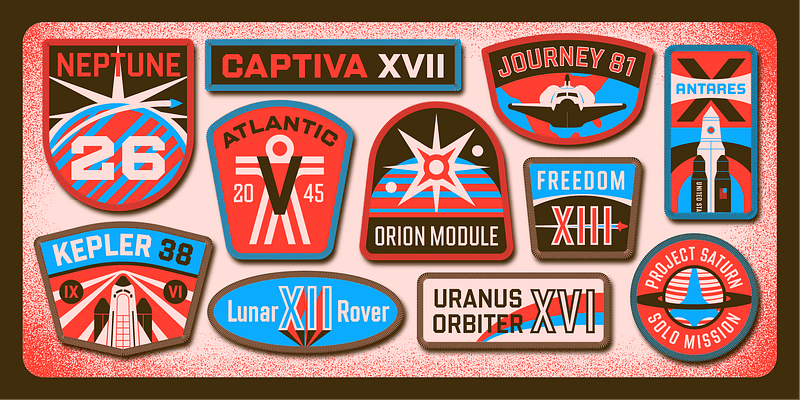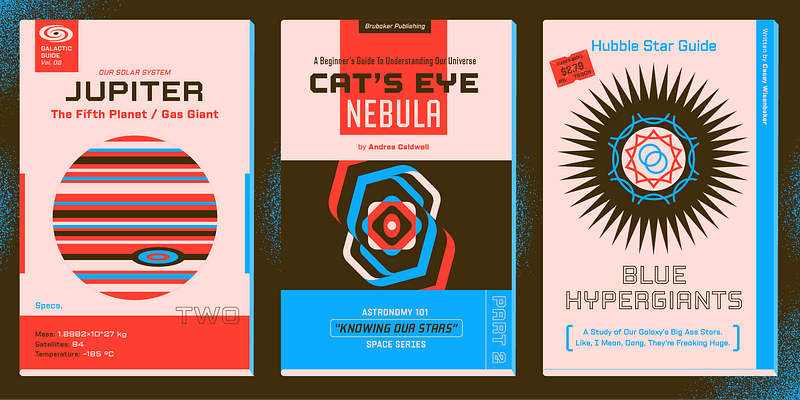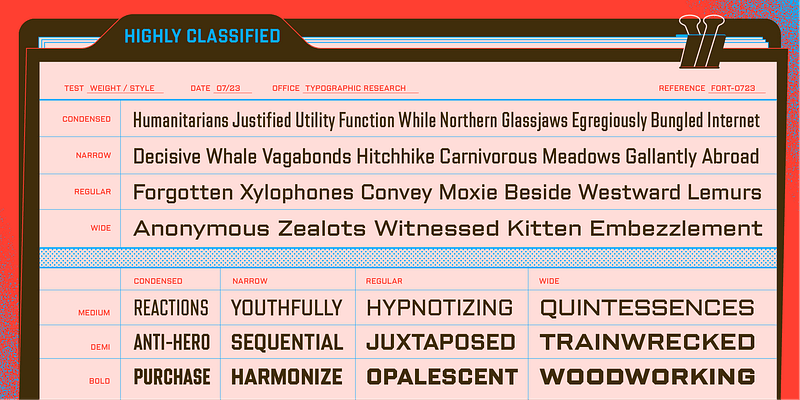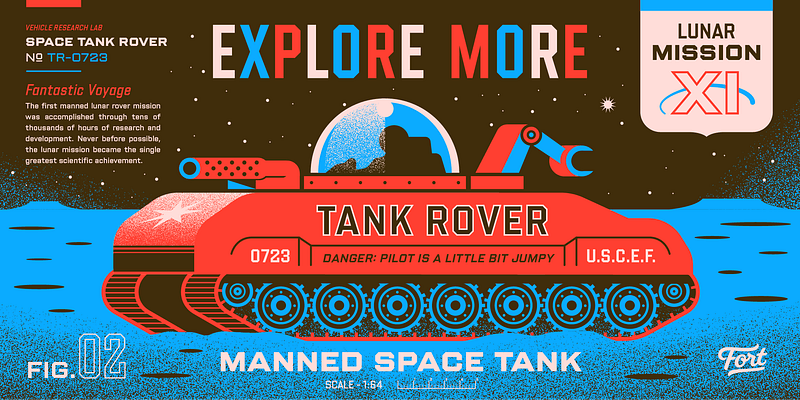
Shuttleblock Font
The Shuttleblock Font is perfect for sci-fi gaming graphics, space technology branding, futuristic product designs, aerospace company logos, cyberpunk movie titles, tech conference materials, innovation lab communications, robotic interface designs, space exploration campaigns, and cutting-edge technology presentations.
What makes the Shuttleblock Font so exciting is its dynamic fusion of geometric precision with futuristic block construction that creates an unmistakable space-age aesthetic perfect for projects demanding technological advancement and innovative visual impact. This striking typeface features bold block letterforms, angular geometric elements, and futuristic design characteristics that perfectly capture the essence of space exploration and cutting-edge technology. The font's futuristic personality and technological sophistication make it an exceptional choice for tech companies, gaming developers, and innovative brands seeking to communicate progress, exploration, and authentic futuristic vision with commanding visual presence.
The Shuttleblock Font family includes technological variations and futuristic alternates, featuring multiple weight options, angular character styles, and space-inspired design elements. Each variation maintains the signature futuristic appeal while offering different levels of technological intensity and geometric expression, giving designers extensive creative possibilities for crafting innovative communications and forward-thinking brand personalities that embody the spirit of space exploration.
The distinctive geometric characteristics of Shuttleblock Font showcase masterful futuristic typography design, with each letter featuring precise angular construction and space-age design elements that enhance its technological credibility and innovative authenticity. The font's comprehensive character set includes uppercase and lowercase letters, numerals, tech-focused punctuation, and futuristic symbols, ensuring complete functionality for diverse technology projects and international space-themed applications.
Specifically engineered for both digital and print futuristic applications, this remarkable font maintains its technological character and space-age integrity across all sizes and formats. From large-scale aerospace displays to detailed tech product interfaces, Shuttleblock Font performs exceptionally while preserving its distinctive futuristic personality and authentic technological appeal.